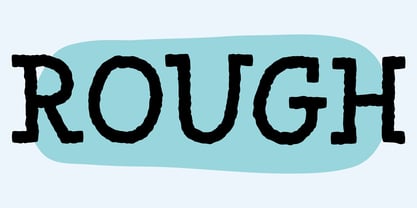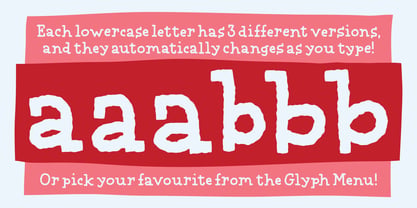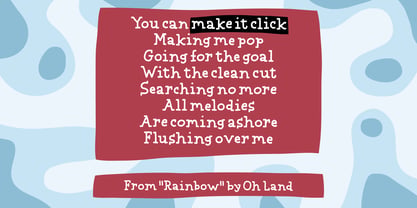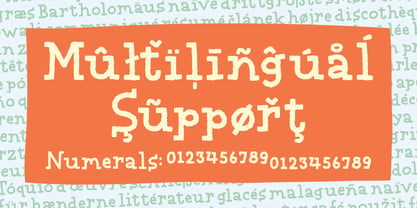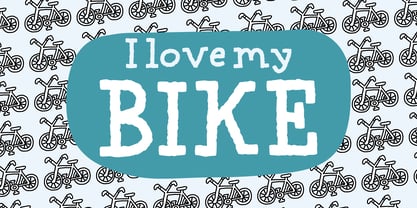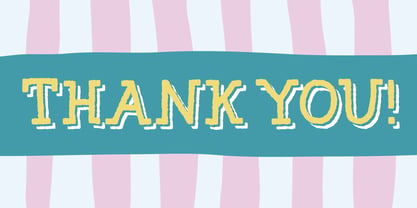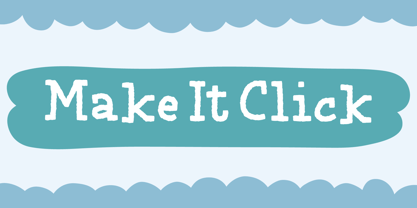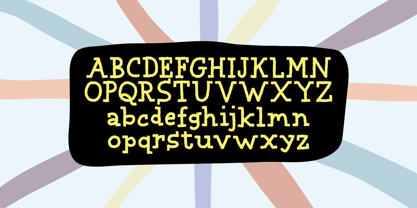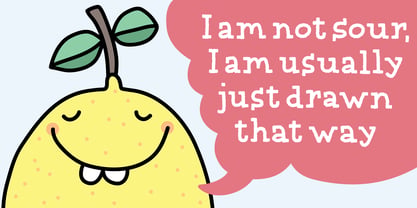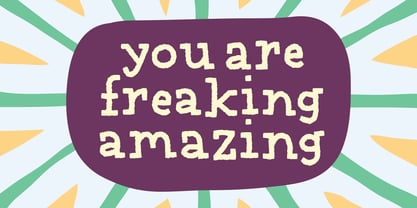
Make It Click
by PizzaDude.dk
The Make It Click Font Family was designed by Jakob Fischer and published by PizzaDude.dk. Make It Click contains 2 styles and family package options. More about this family
I guess you can call this style “Slab Serif” - due to the squarish and blunt serifs. I actually was inspired by well-known designs, such as Rockwell, Geometric Slabserif, Calvert and alike. But decided to make this font more wild, cheerful, organic and unpredictable. The edges are rough, lines and strokes are thick, serifs are sometimes missing, placed wrongly or maybe even missing! The result: A super legible slab serif font with a twist of comic and graffiti! Besides multilingual support, I added 3 different versions of each lower-case letter, and they automatically changes AS you type!
Designers: Jakob Fischer
Foundry: PizzaDude.dk